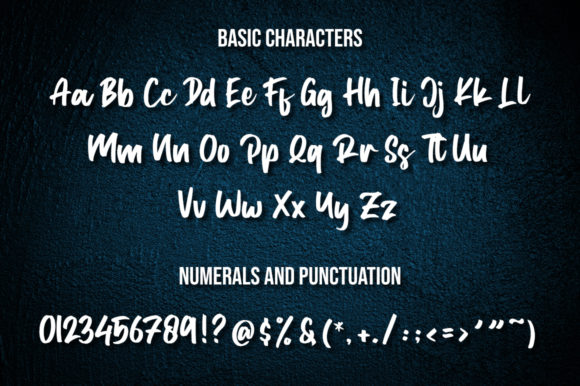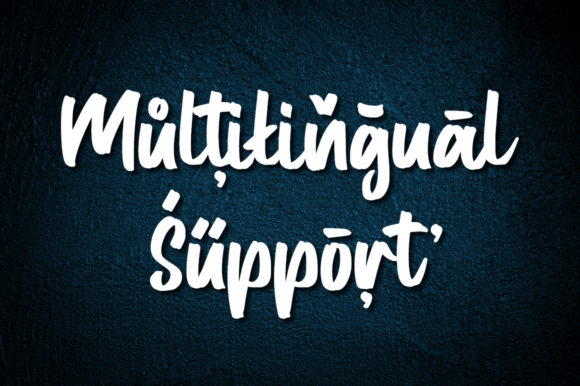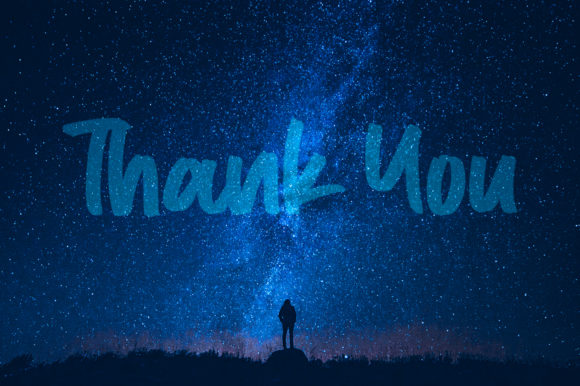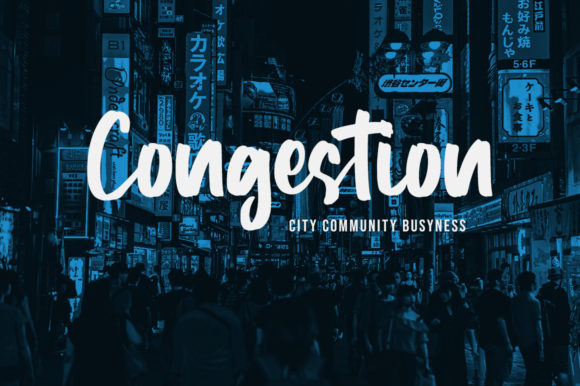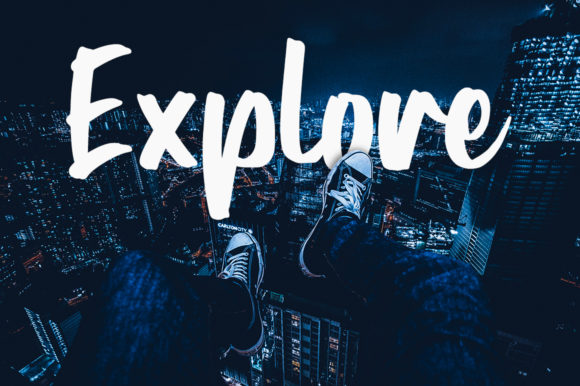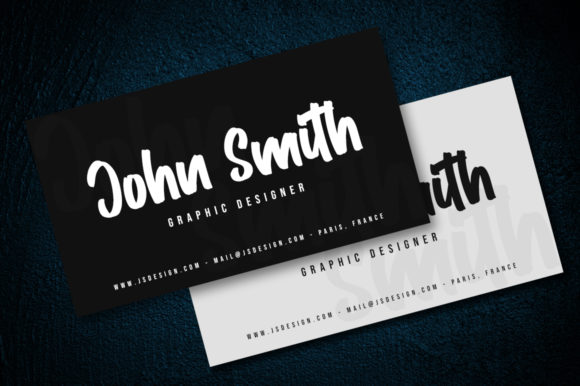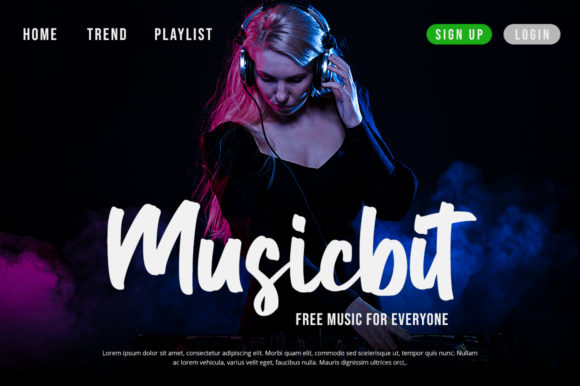
Typestory Font
About Typestory Font
Typestory is a bold handwritten font. This fantastic typeface font is best suited for headlines of all sizes, as well as for blocks of text that have both maximum and minimum variations. Whether it’s for web, print, moving images or anything else – Typestory will look spectacular.